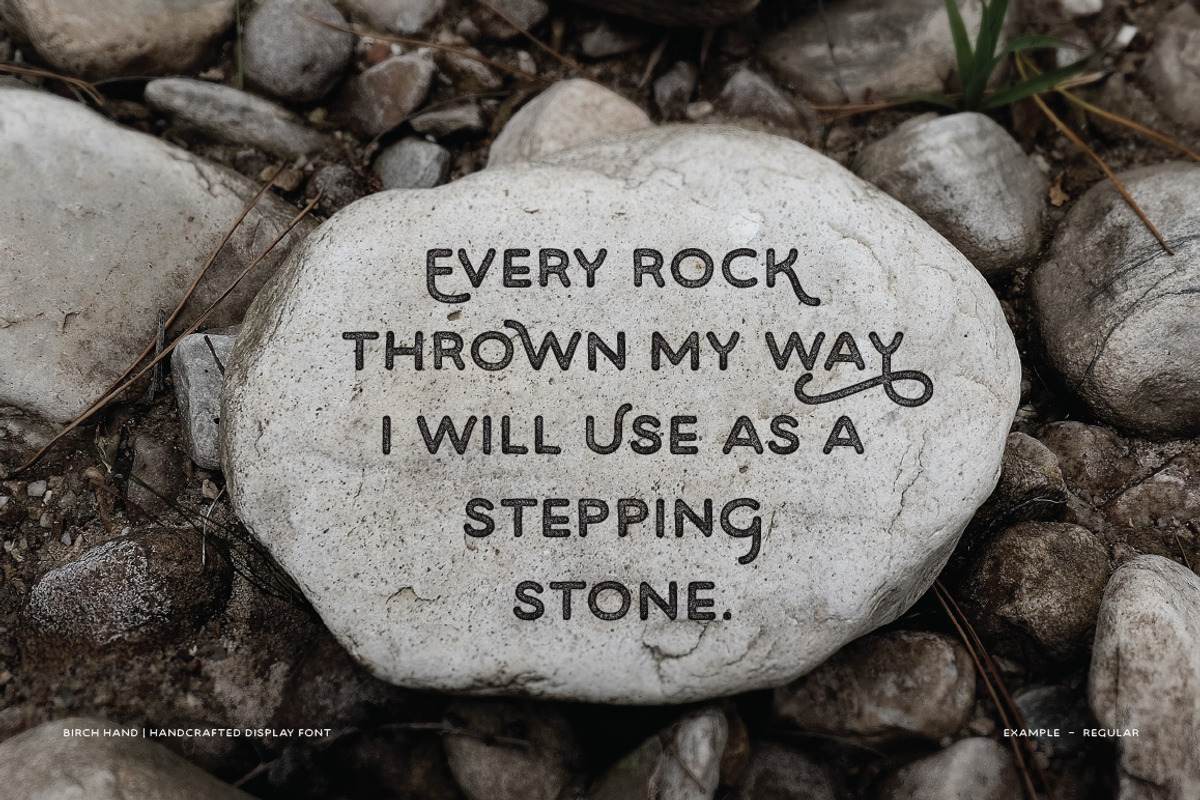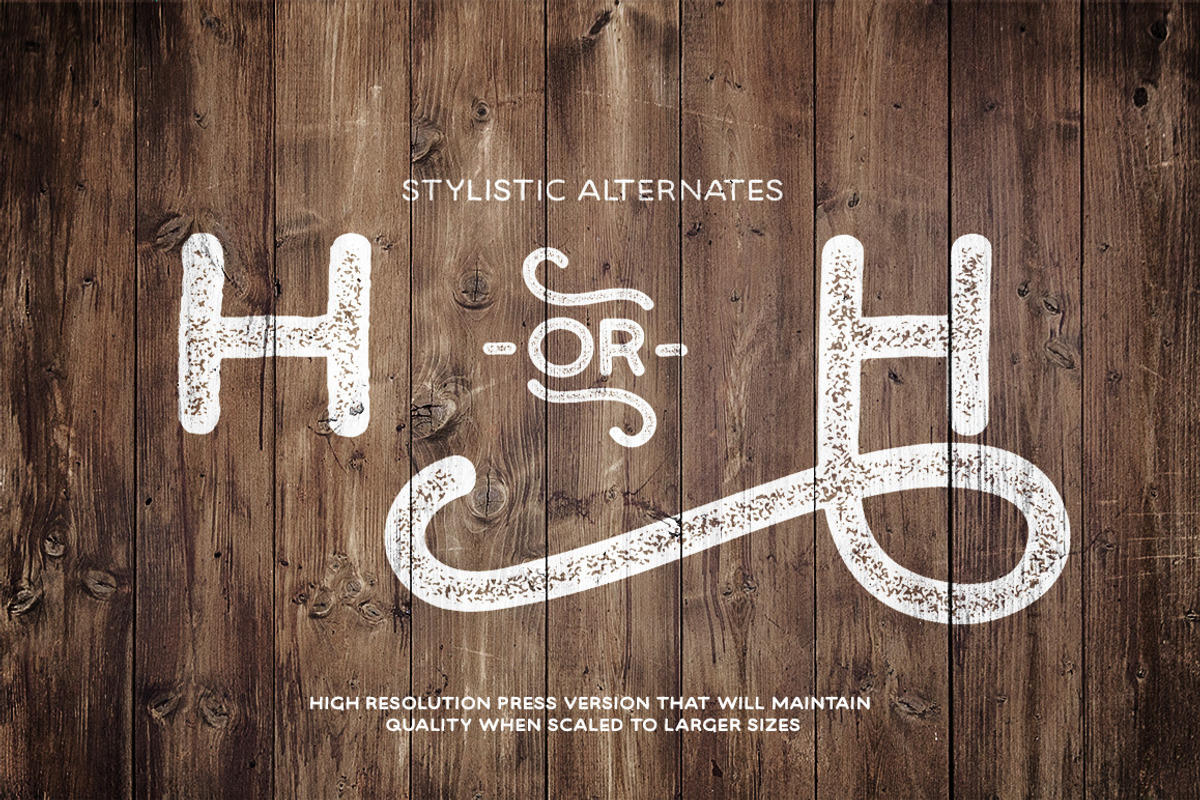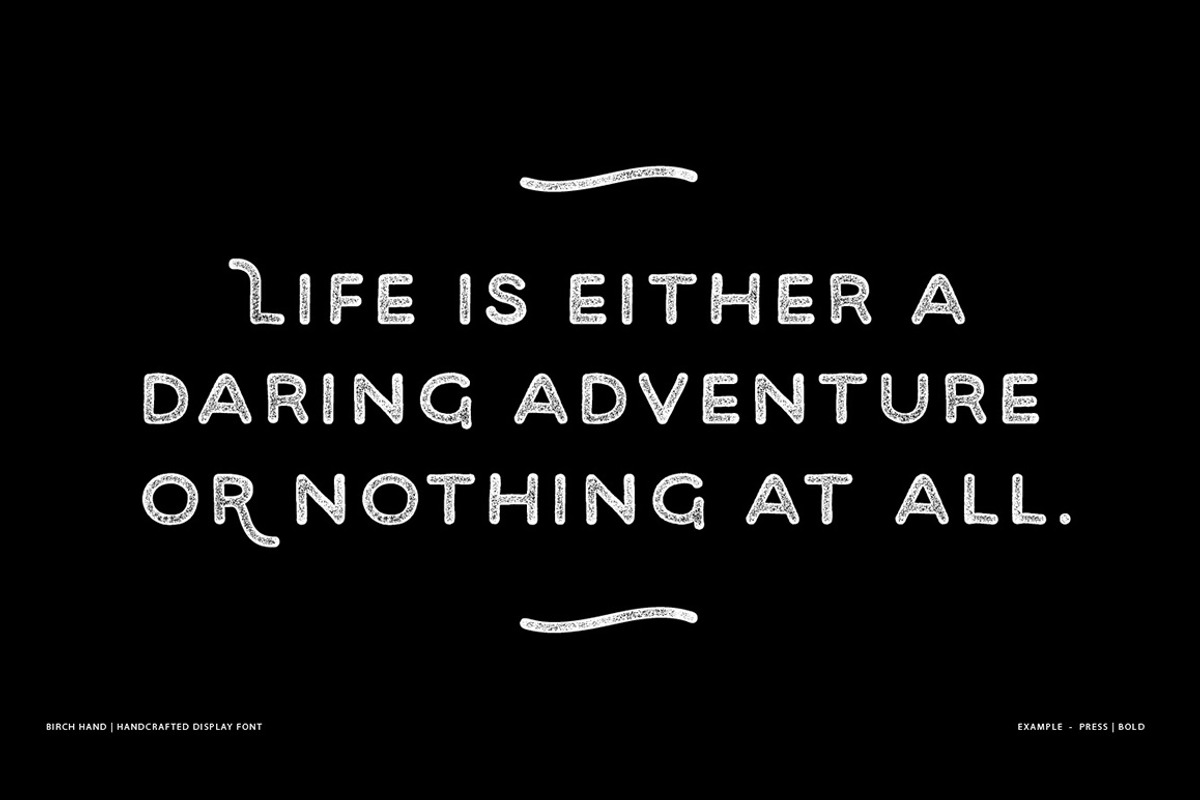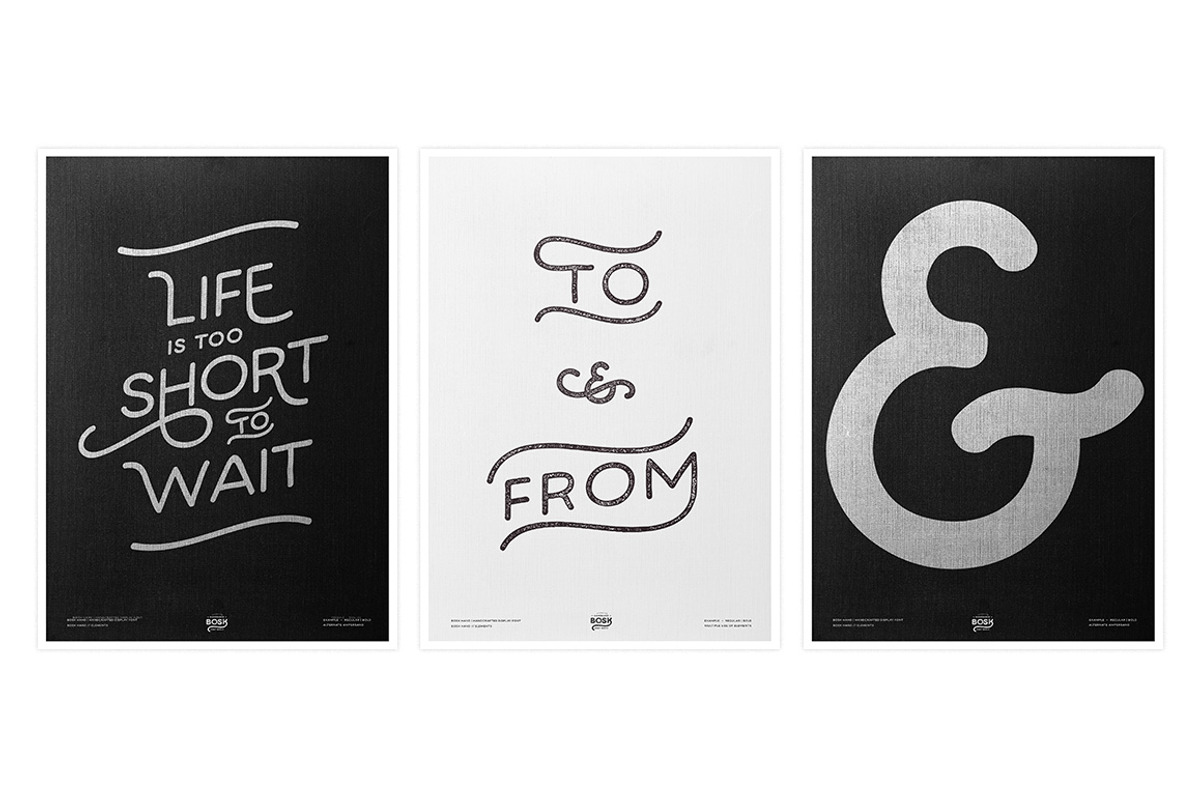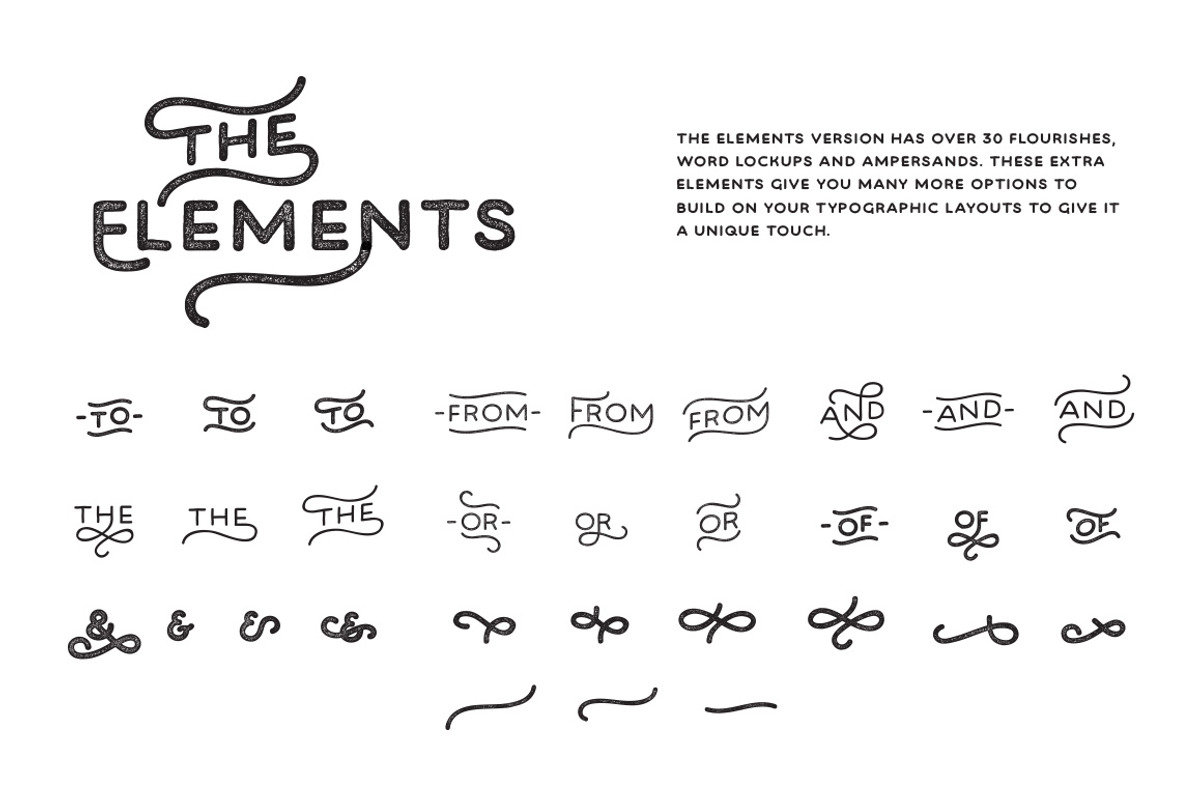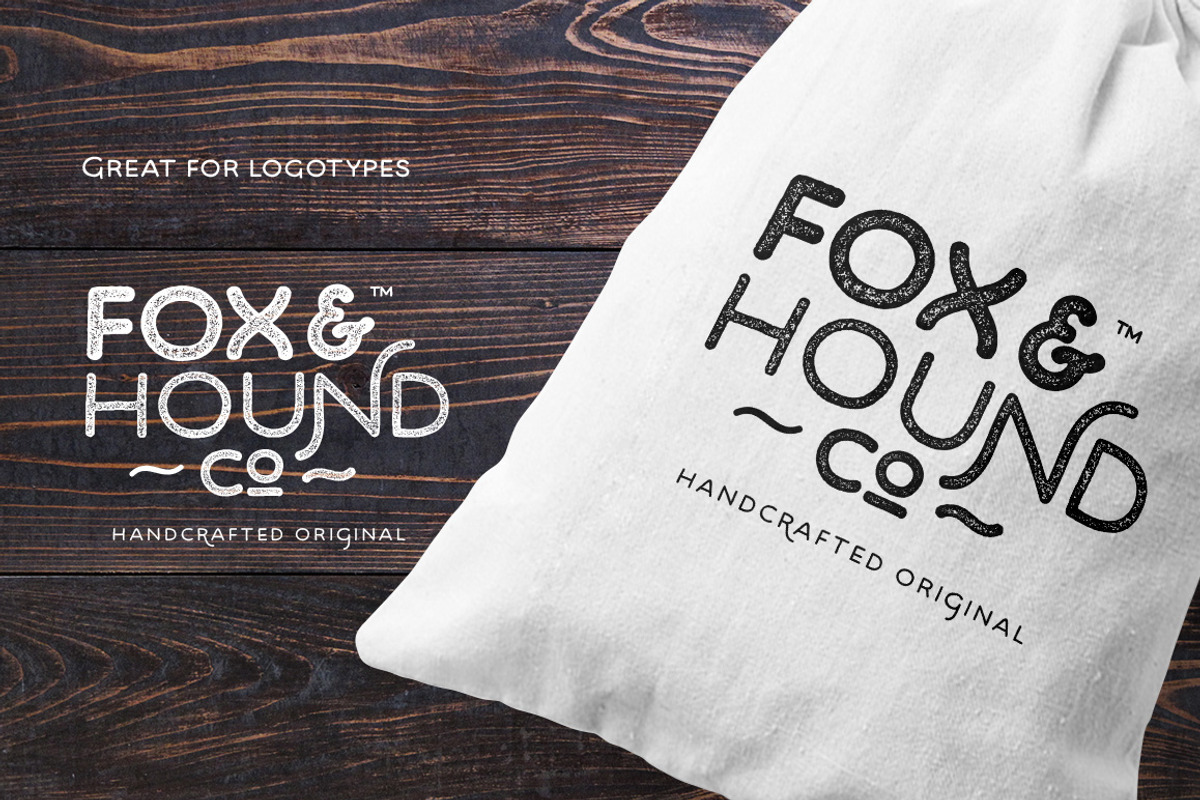
Bosk Hand
Bosk Hand is a vintage inspired display font family that has a raw and authentic hand drawn look and feel about it, Bosk comes in regular and press versions, the press versions have a high quality distress effect that works well when scaling the font into large sizes. This font family is versatile for use in desktop publications, packaging, logotypes that need that hand made authentic feel as well as digital applications. Use the elements to add a unique hand lettered touch to your layouts.